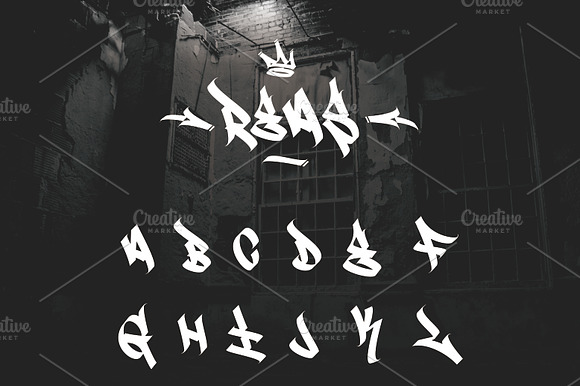
handstyle tagging graffiti bombing
handstyle tagging graffiti bombing font by "reas" fullpack A - Z and symbols
handstyle tagging graffiti bombing by barokah font fits naturally into Branding, posters, packaging, typography.